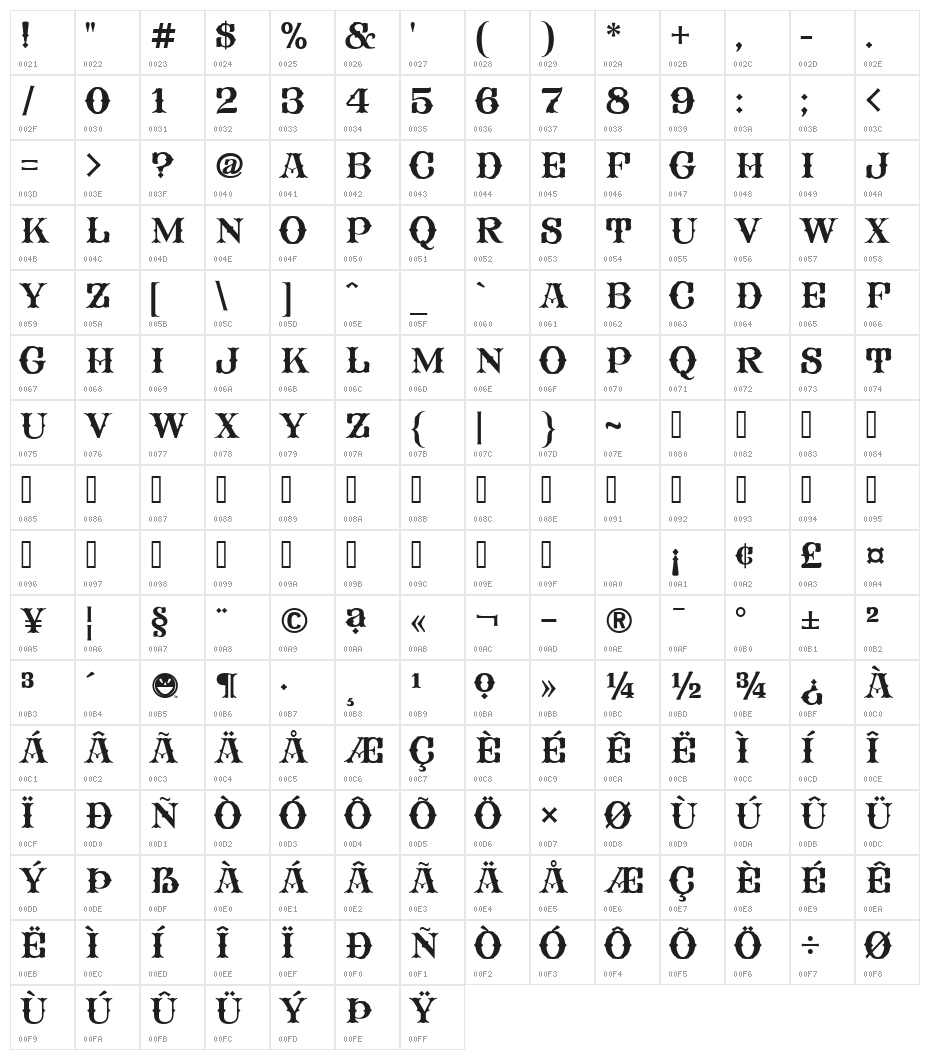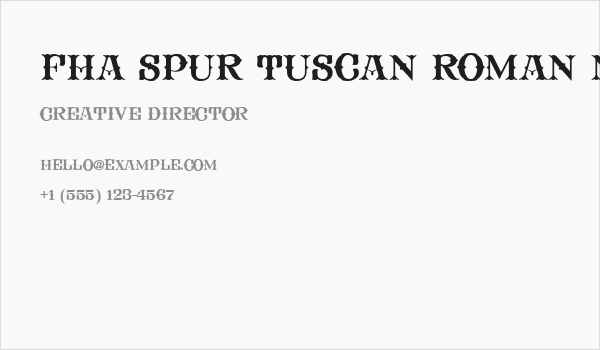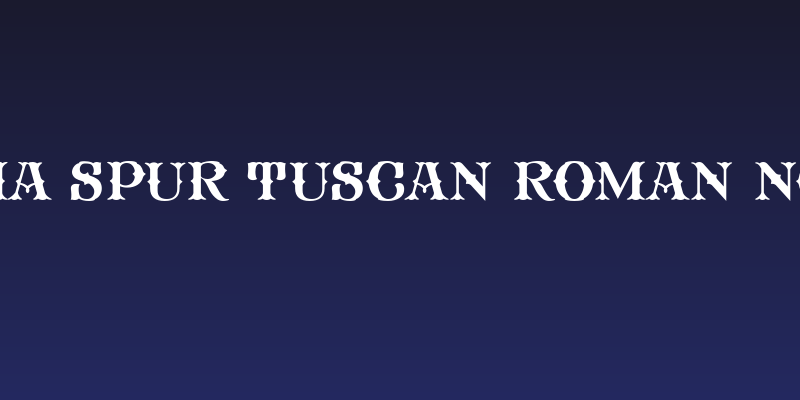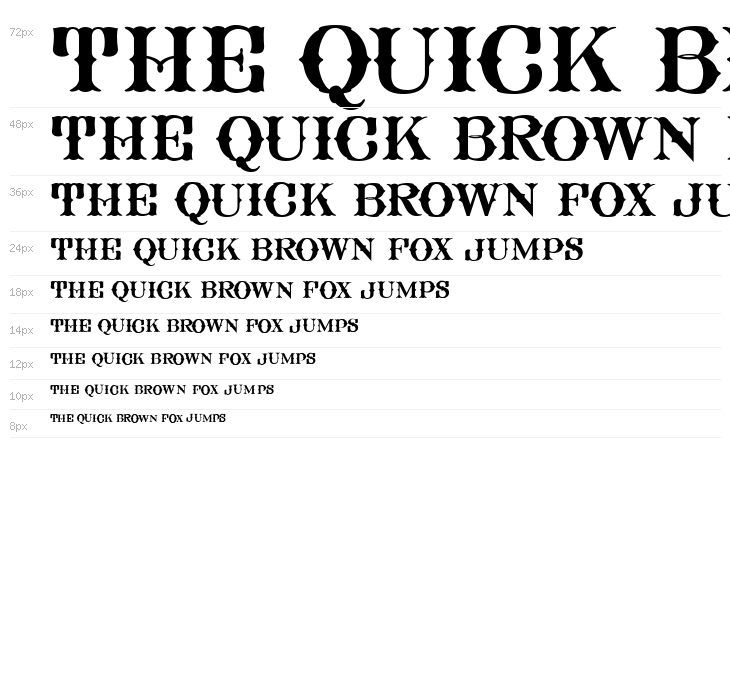
FHA Spur Tuscan Roman NCV Font
FHA Spur Tuscan Roman NCV Description
This font features a bold and decorative style with unique spurs and flourishes that give it a distinct, eye-catching appearance. The characters are well-defined with sharp edges and intricate detailing, making it stand out in any design. The uppercase letters are particularly ornate, with each character exhibiting a sense of grandeur and elegance. The numbers and special characters maintain the same decorative flair, ensuring a cohesive look across all text elements. This font is perfect for projects that require a touch of vintage charm and artistic flair.
| Proposed Projects | Ideal for vintage posters, logo design, book covers, and decorative signage. |